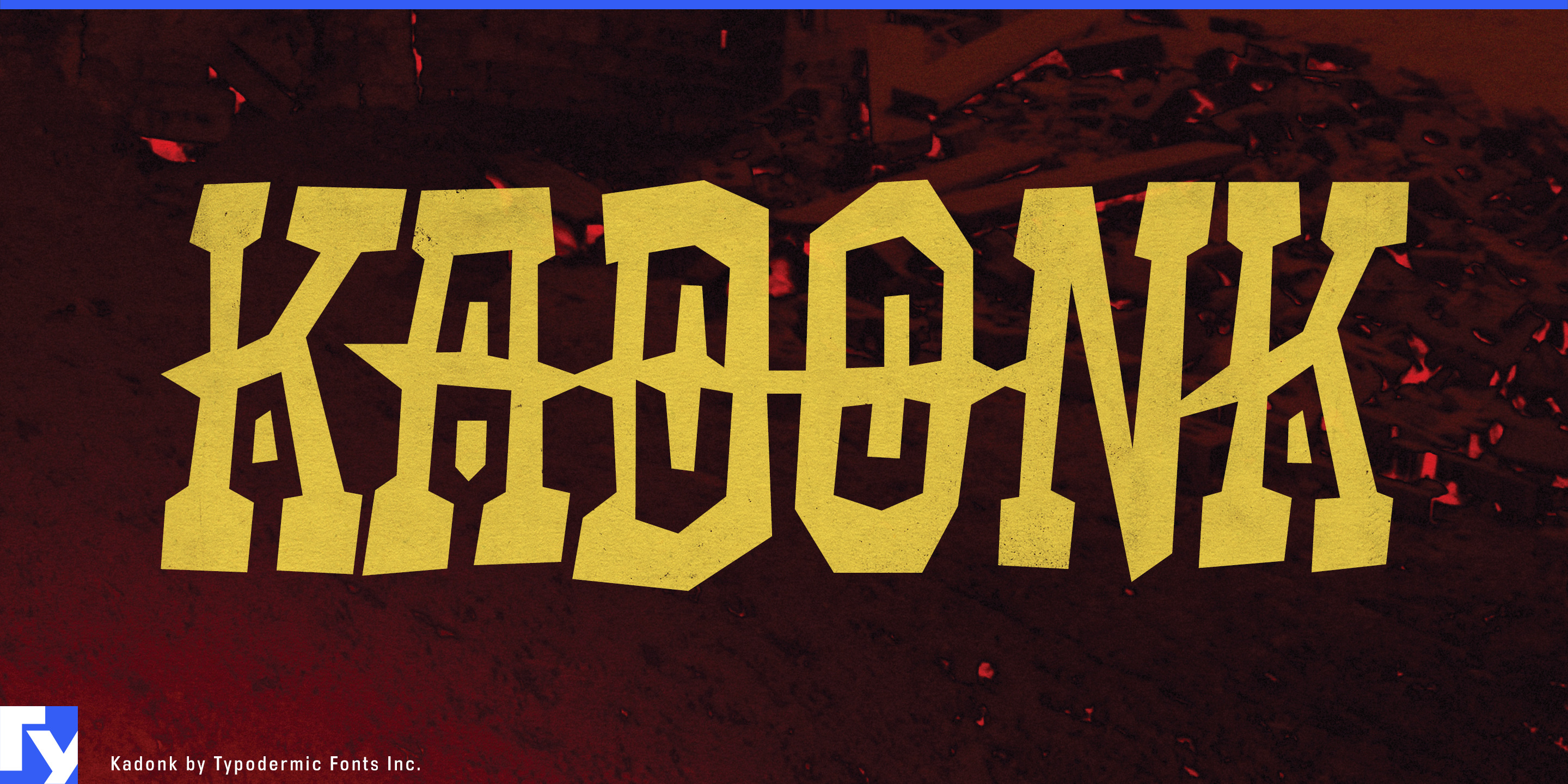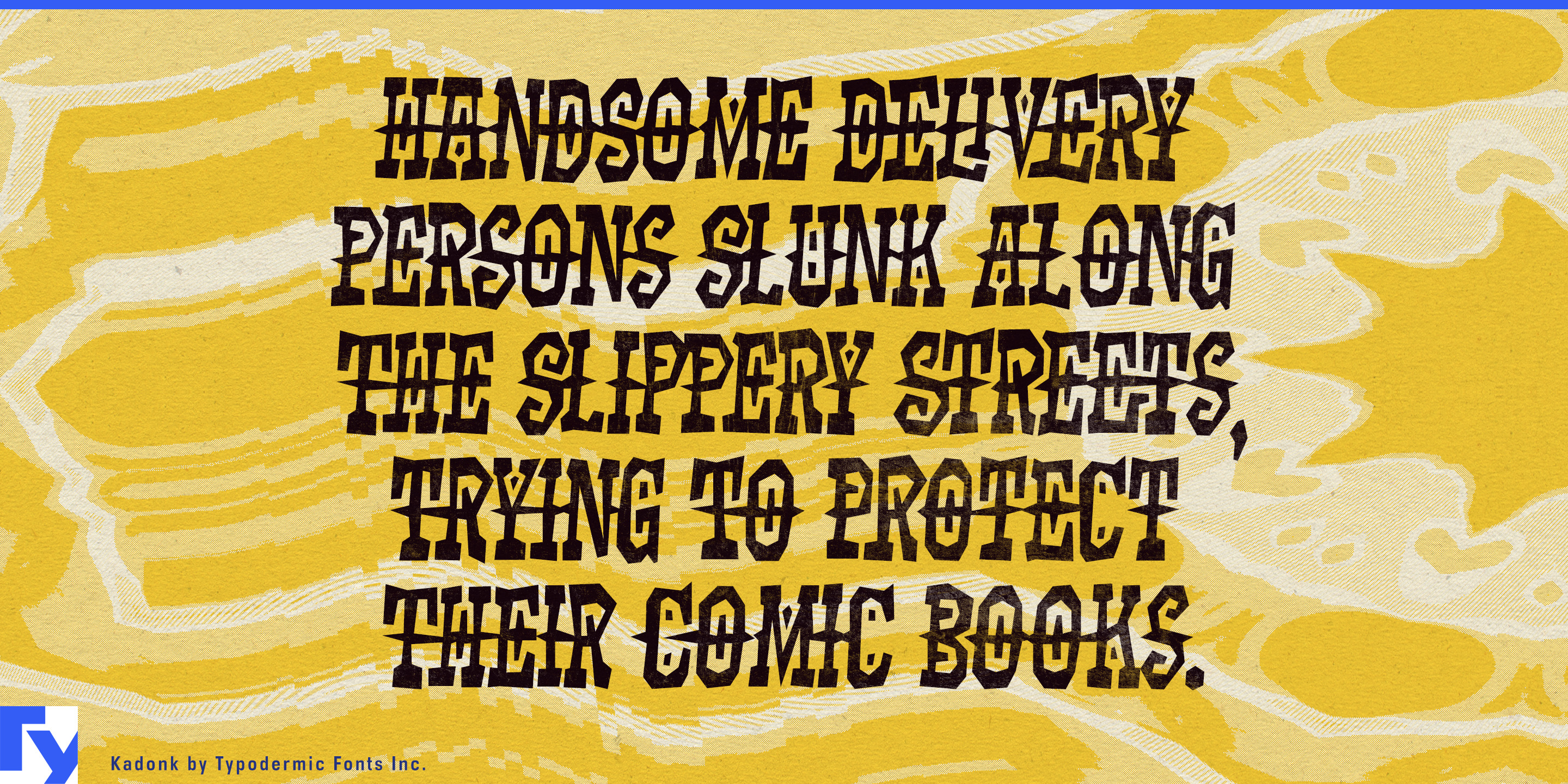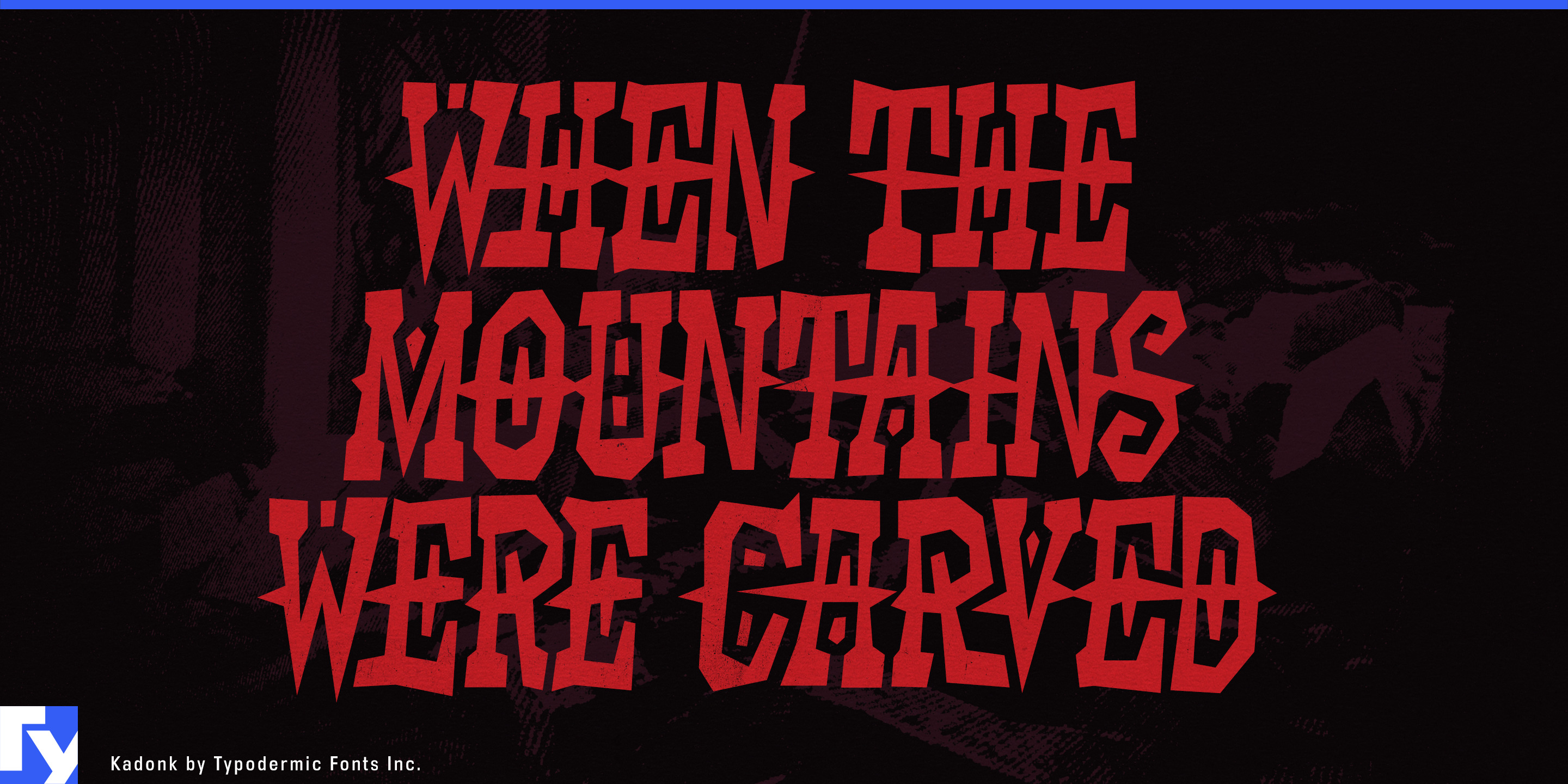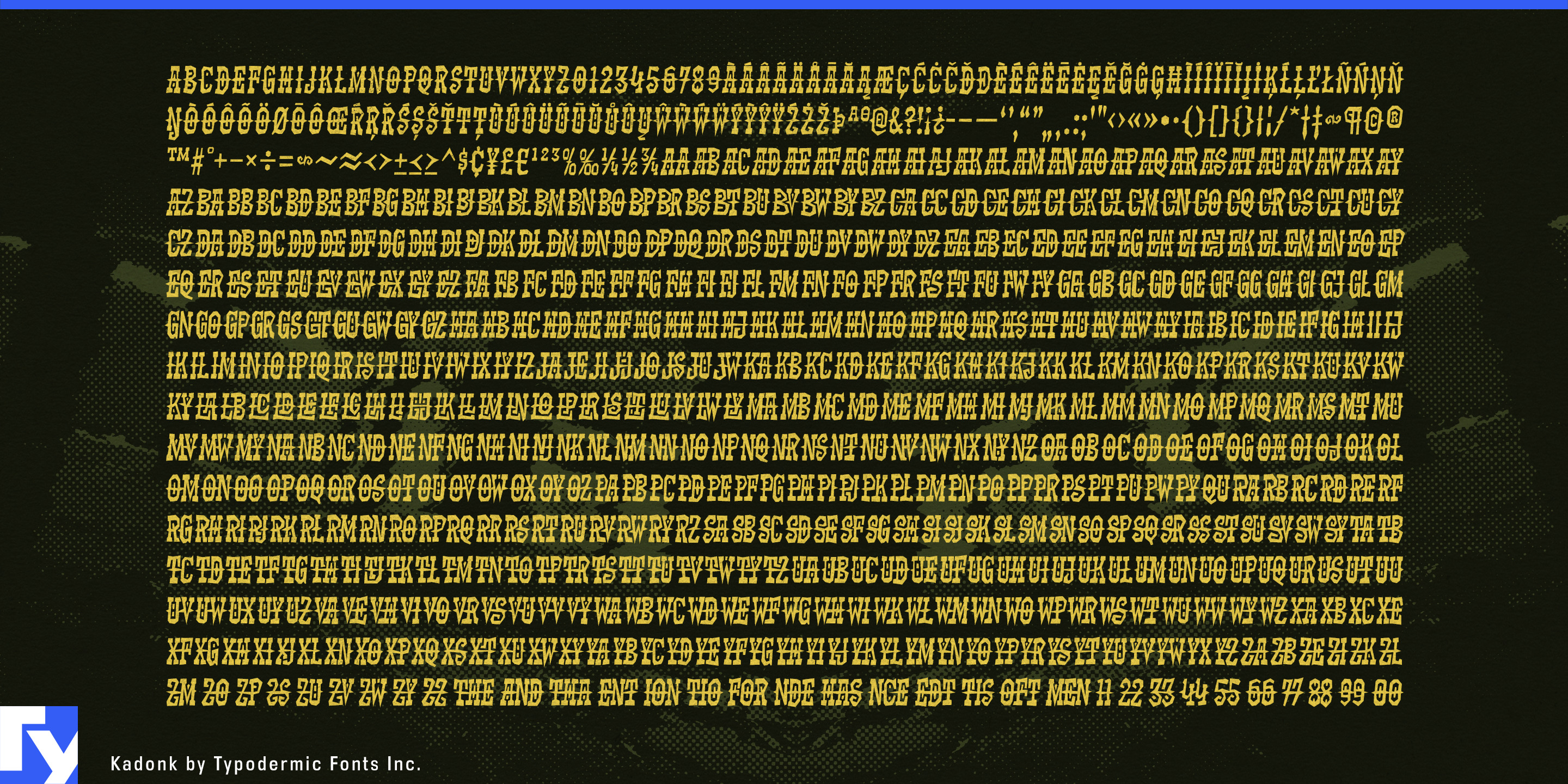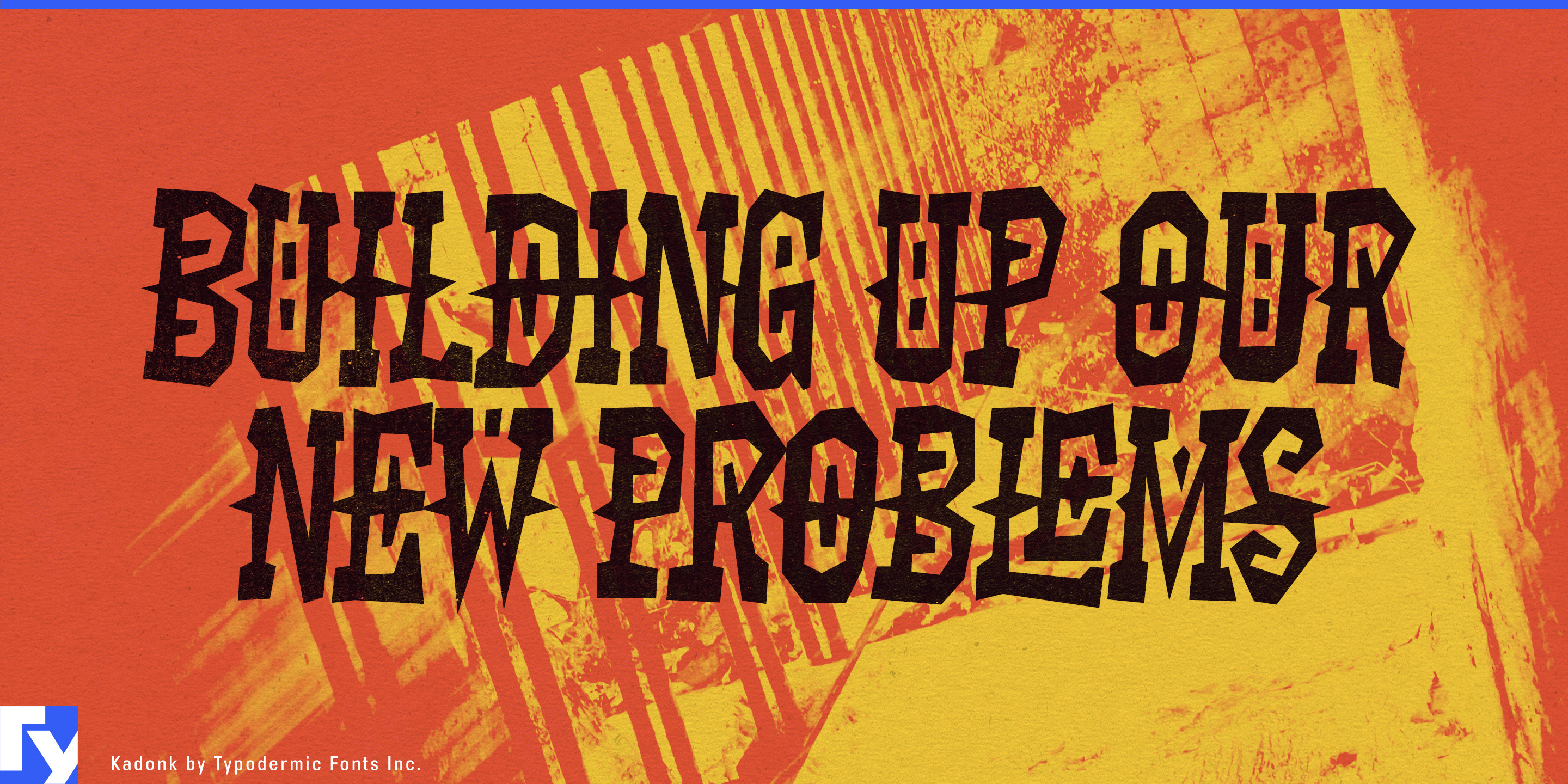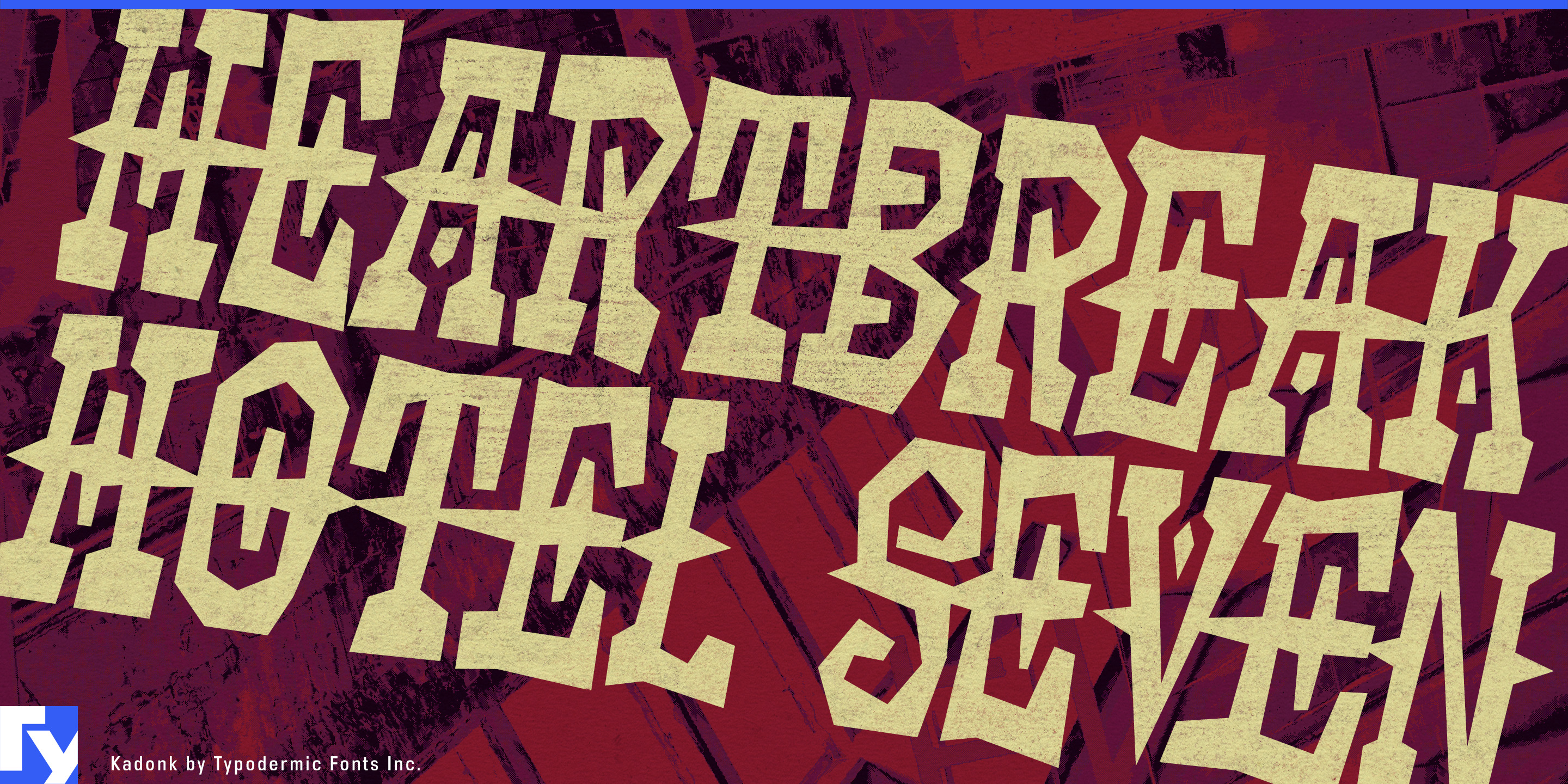
Kadonk
Kadonk isn’t here to whisper. It’s the kind of typeface that refuses to sit still—letterforms cut at sharp, restless angles; ligatures that twist and collide in unexpected ways; and a texture that feels more handmade than machine-tooled. Every word you set in Kadonk has a pulse; it’s typography with a heartbeat and a bit of a twitch.
The condensed uppercase proportions make it perfect for tight spaces where you still want to shout. Stack it in bold, narrow columns for posters, or let it sprawl across a banner in unpredictable rhythm. Its hundreds of custom ligatures mean no two words look quite the same, giving you a dynamic, “hand-set” feel without the time-consuming work of custom lettering.
Kadonk thrives in places where ideas can’t be polite: protest placards, gig posters, zines, streetwear branding, or the cover of a dystopian novel. It’s just as at home on a punk band’s merch table as it is headlining an art exhibition about disruption and outsider voices. Drop it over a textured background and it refuses to fade; layer it into a minimalist layout and it becomes the element that refuses to behave.
When you need a display face that can be fierce, mischievous, or defiantly offbeat, Kadonk will keep your message alive—and a little unpredictable.